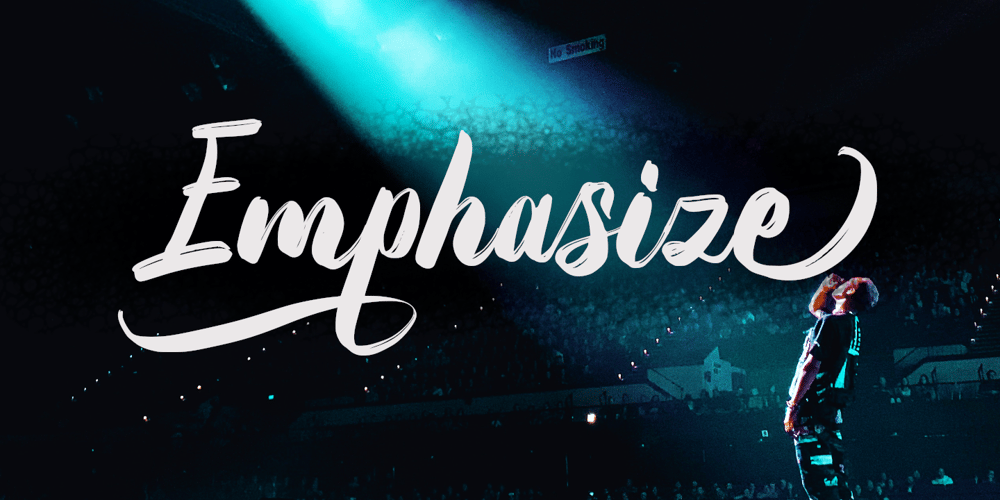
Emphasize
Emphasize font
Emphasize Font Family was designed by Syukur Setiyadi and published by SSI.Scraps. Emphasize contains 1 styles and family package options. Emphasize is a unique textured brush font. it is an incredibly versatile handwritten brush font. With its neat and beautiful arrangement of letters, this typeface will look outstanding in both formal and non-formal designs. It deliveries a strong feel and it’s the perfect choice for logos, branding, social media posts, magazines and much more!